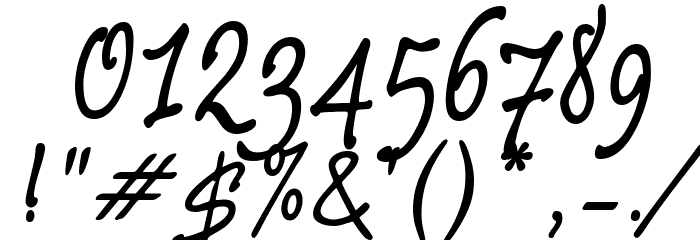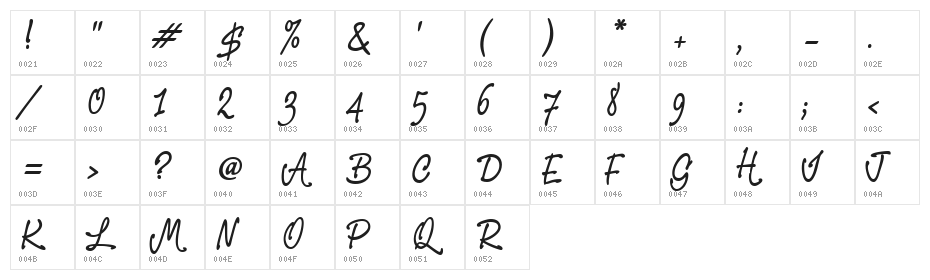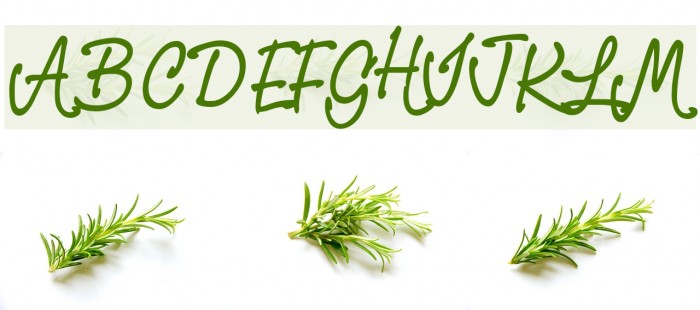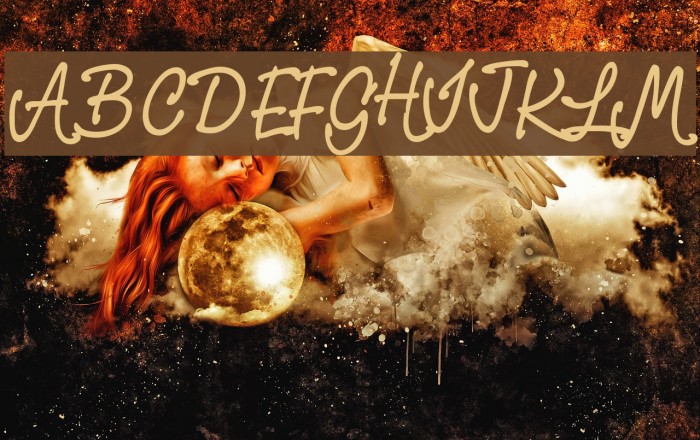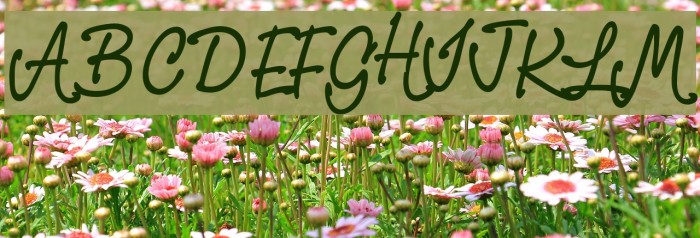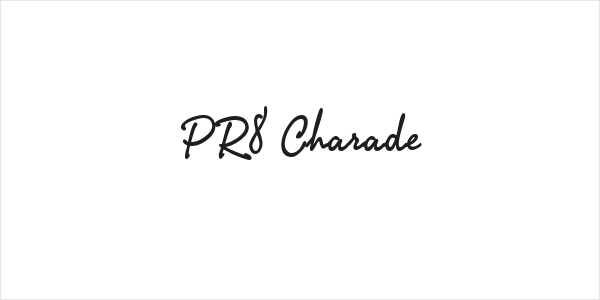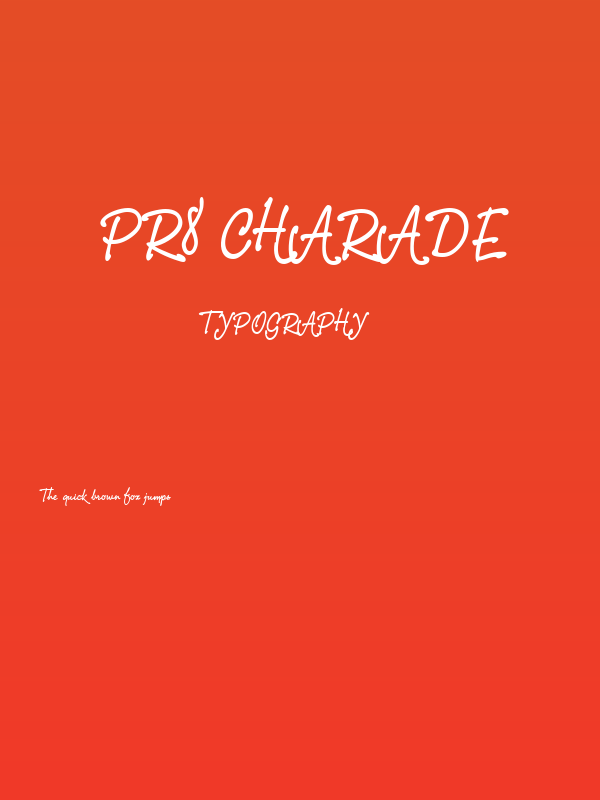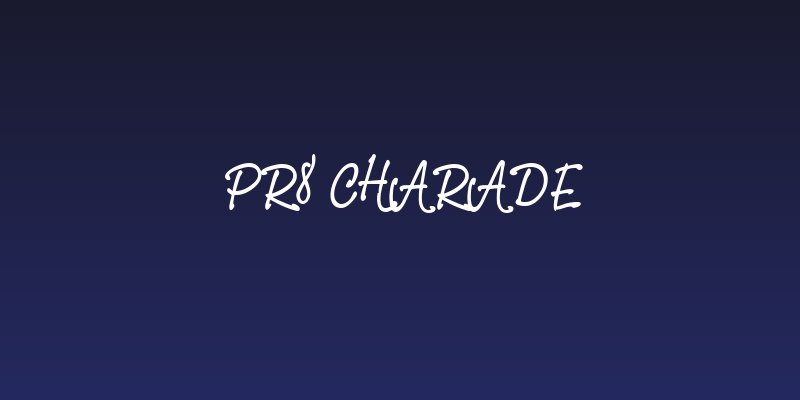
PR8 Charade Font
PR8 Charade Description
This font features a lively and dynamic script style, characterized by its fluid and connected letterforms. The uppercase letters exhibit a playful elegance with loops and flourishes, while the lowercase letters maintain a consistent flow, enhancing readability despite their cursive nature. The numerals are designed with a similar flair, ensuring they complement the overall aesthetic. Special characters are crafted with attention to detail, adding to the font's versatility. The strokes are moderately thick, providing a balanced contrast that makes the text stand out without overwhelming the reader.